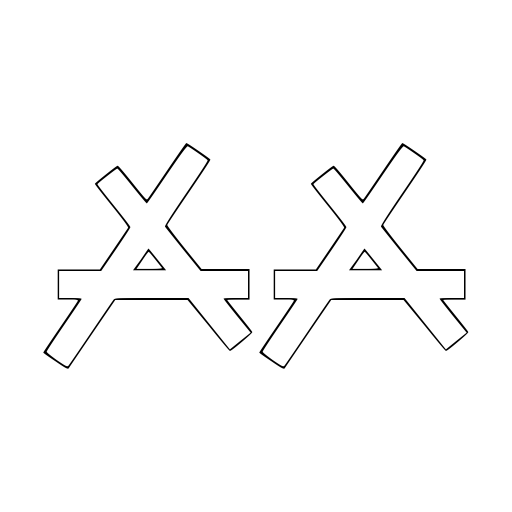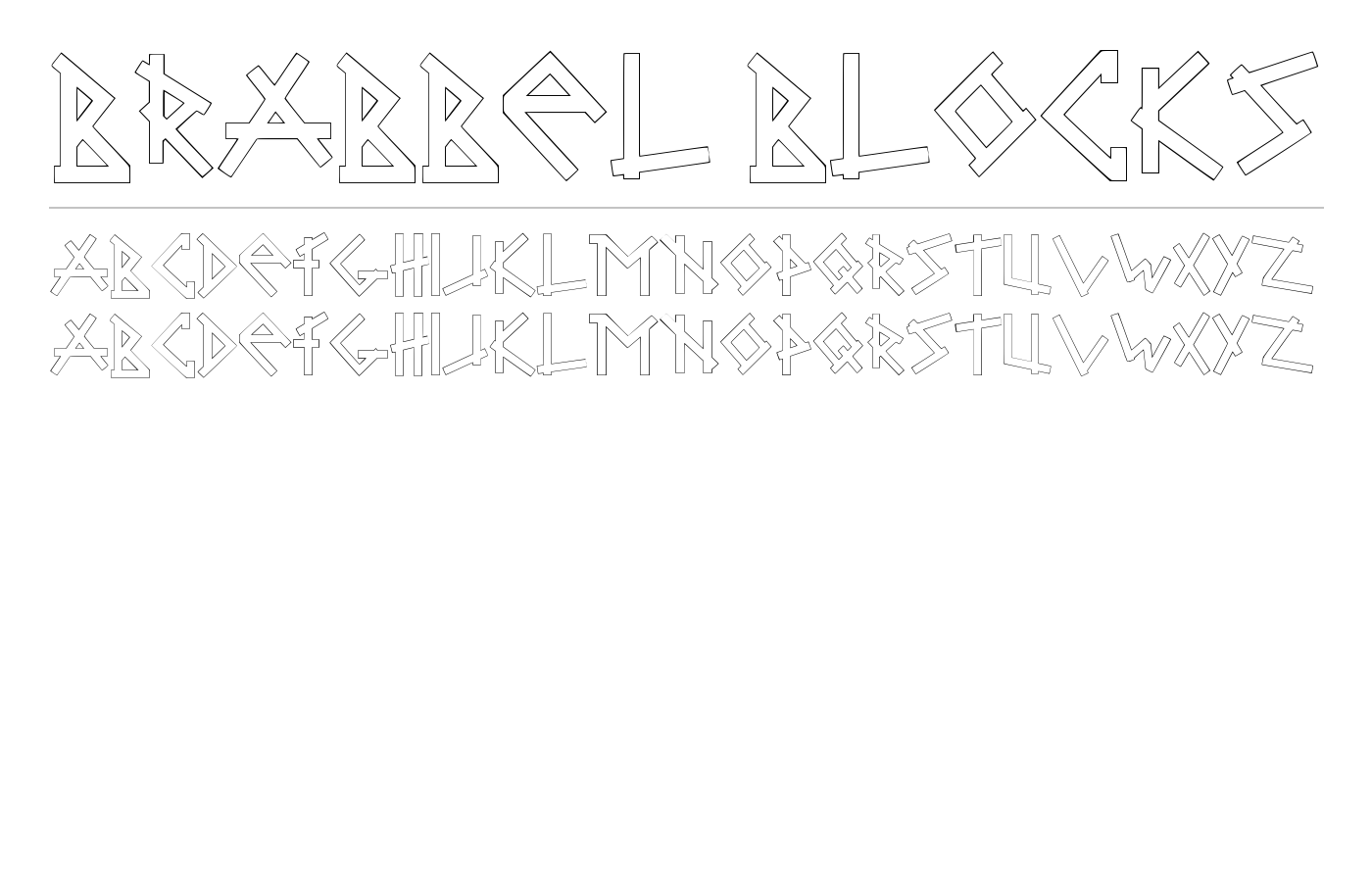
Brabbel Blocks is a playful, geometric display font characterized by its angular, block-like letterforms with sharp, stepped details that create a lively, almost puzzle-like effect. Its narrow, outlined strokes and irregular shapes give it a bold, quirky personality ideal for creative branding, posters, and fun headlines where a dynamic, eye-catching style is needed. This font adds a whimsical, modern vibe while maintaining clear readability in short bursts of text.
Brabbel Blocks Font
About Brabbel Blocks Font